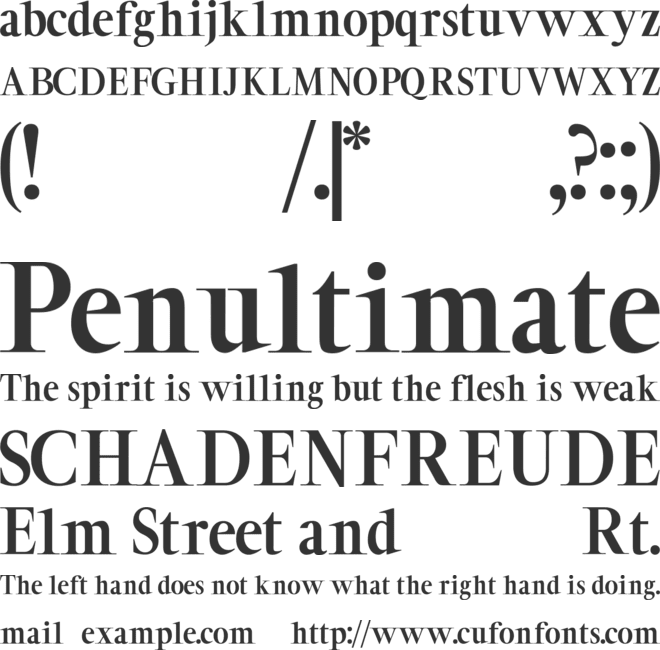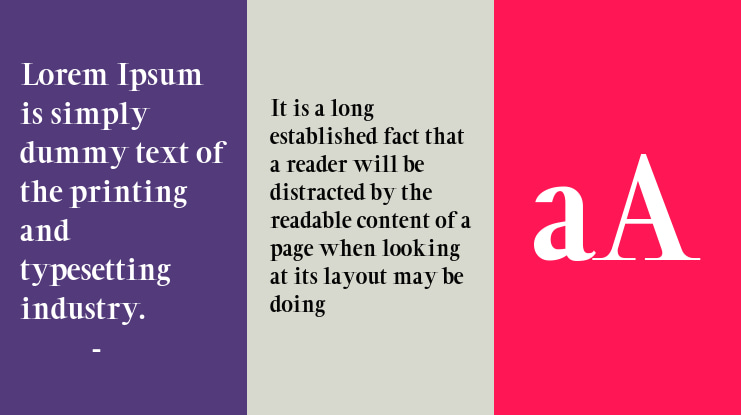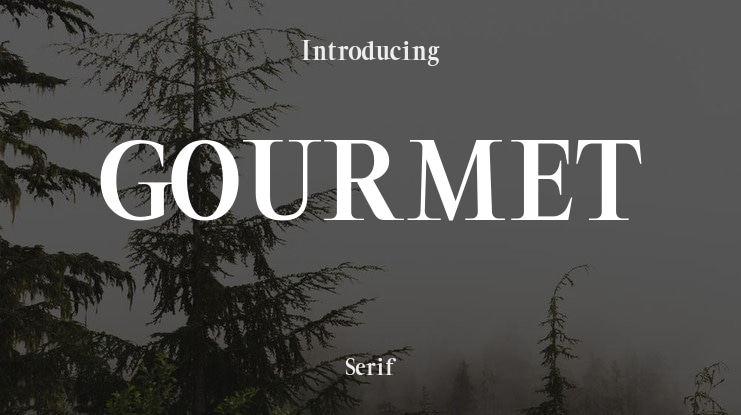
GOURMET Font
🎨 Font Name: GOURMET by Minimalist Art Studio
🎨 Font Description: GOURMET is a classic serif with 350+ glyphs and multilingual support—perfect for menus, packaging, and refined food branding.
✔ Complete Latin set + multilingual diacritics
✔ Alternates, stylistic sets & ligatures
✔ Numbers, small caps, and extended punctuation
✔ Bonus italics and family styles